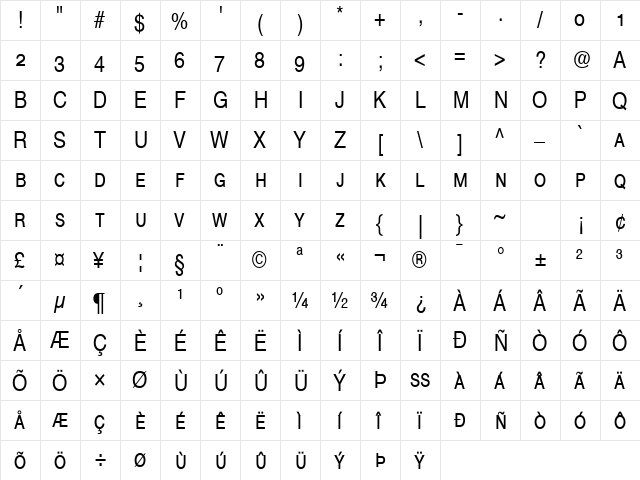
Helvetica Narrow SC Regular
Design Context for Helvetica Narrow SC Typeface
Helvetica Narrow SC offers clean, dependable letterforms without strong stylistic allegiance, making it a practical choice for designers who need flexibility. The condensed width makes it efficient for tight spaces without sacrificing legibility.